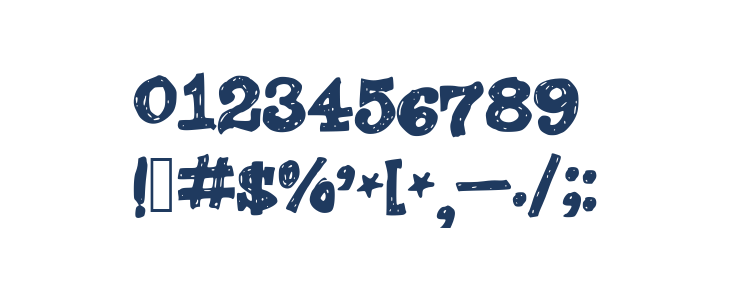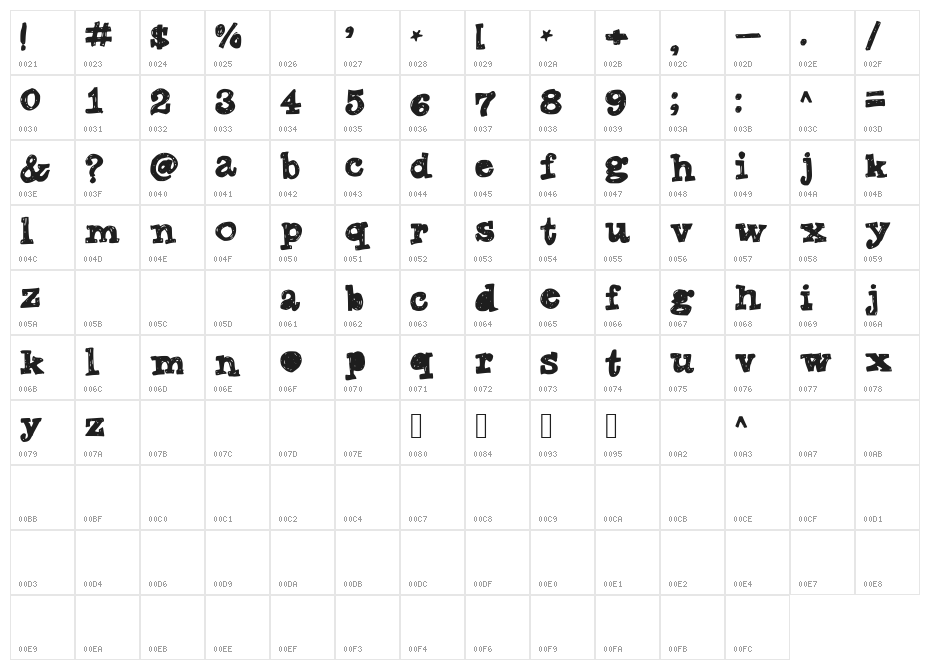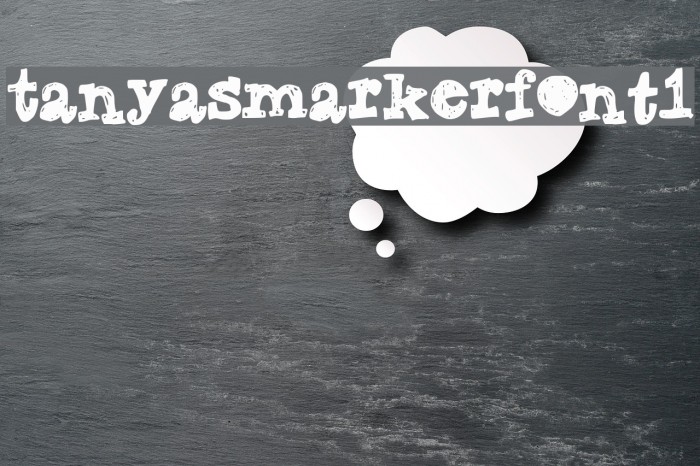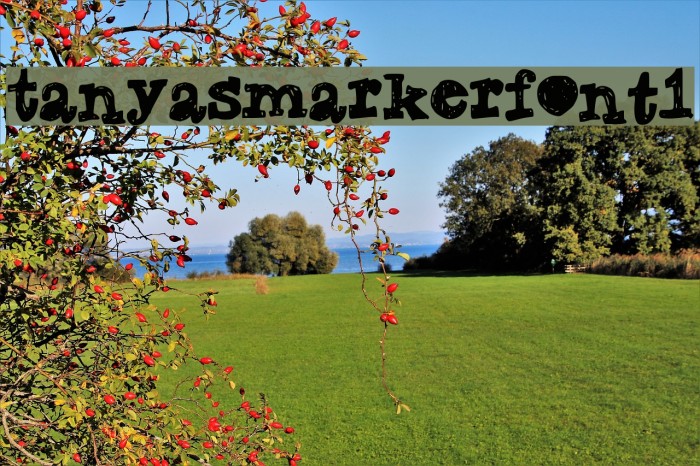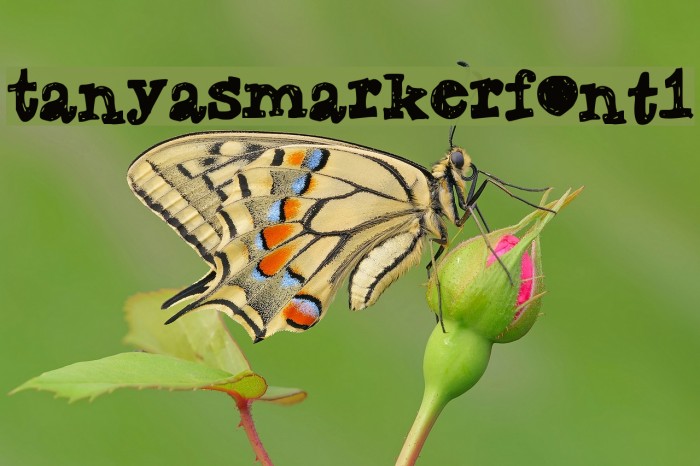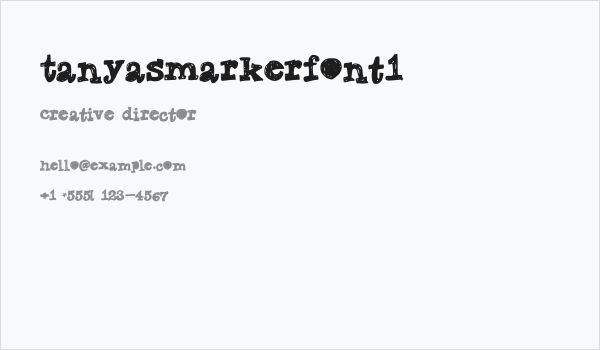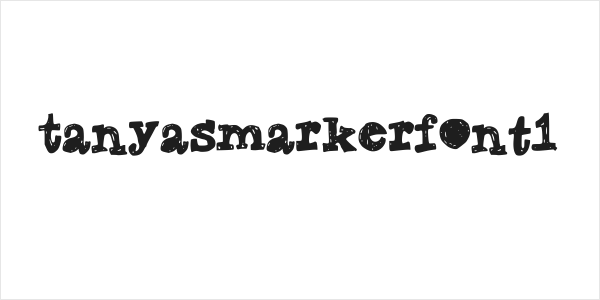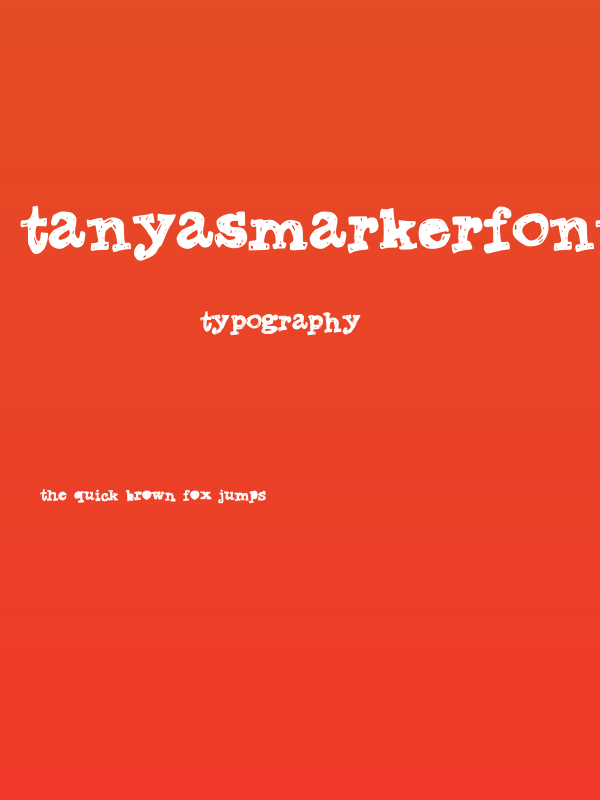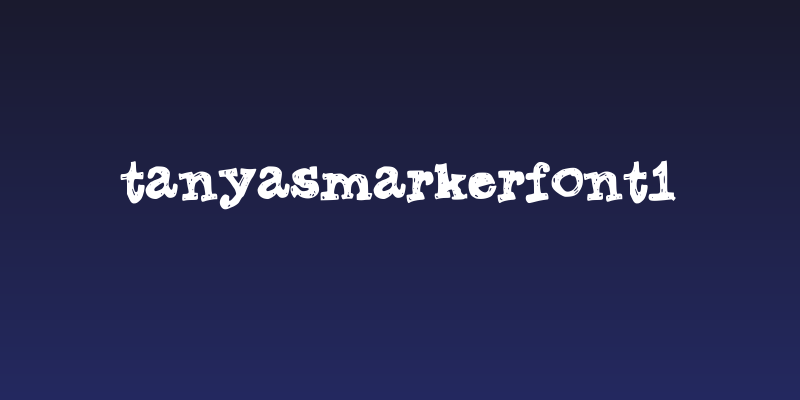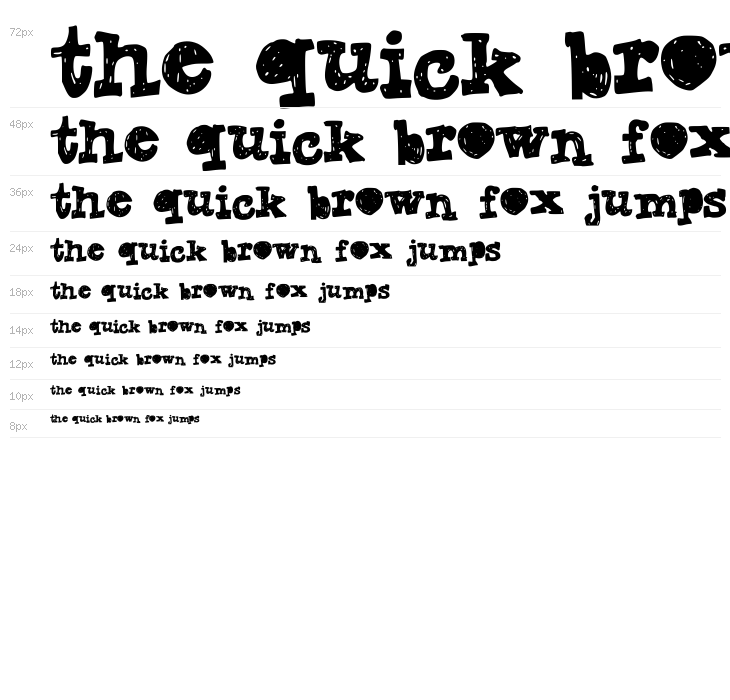
TanyasMarkerFont1 Font
TanyasMarkerFont1 Description
This playful and bold font features a hand-drawn style with a whimsical touch. Each character is filled with unique, irregular patterns that give it a textured appearance, reminiscent of a marker or crayon drawing. The letters are rounded and slightly uneven, adding to the casual and fun aesthetic. The font maintains a consistent weight throughout, with thick strokes that ensure readability while maintaining its artistic flair. The numbers and special characters follow the same design principles, making them cohesive with the alphabet. This font is perfect for projects that require a lively and informal tone.